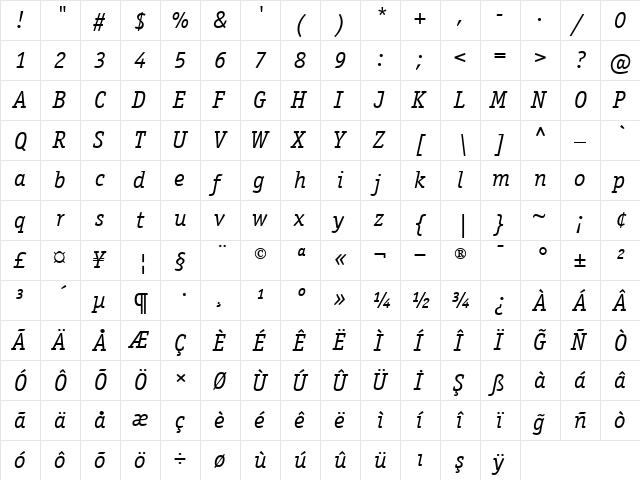
OfficinaSerifBookItalic Regular
Design Context for OfficinaSerifBookItalic Typeface
OfficinaSerifBookItalic carries the refined structure of traditional serif typography, with bracketed terminals and considered proportions that communicate credibility and craft. The dynamic lean of this cut emphasises speed and emphasis in any layout.